1. The Mainstay Font
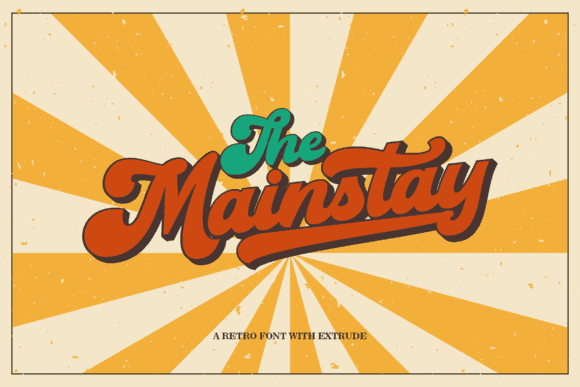
The Mainstay is a bold and retro styled handwritten font. This font reads as strong, confident, and dynamic and can add tons of nostalgic character to your designs.
2. Sailyme Font
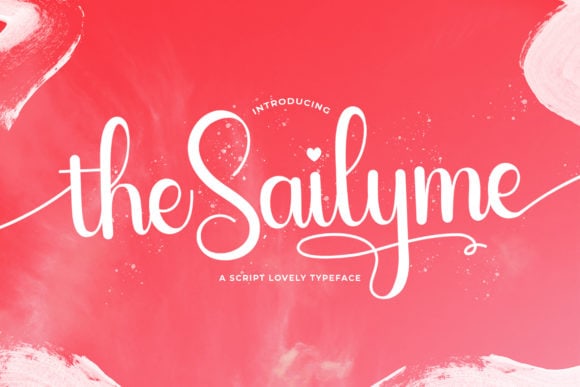
Sailyme is a romantic and delicate script font that has complimentary heart and swirly swashes that make it perfect for wedding invitations, greeting cards, and valentine’s day crafts.
3. Bigroads Script Font
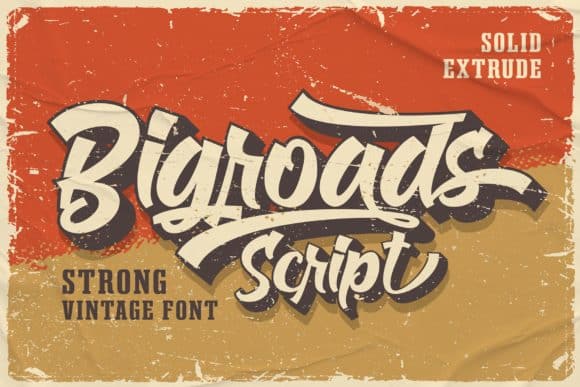
Bigroads Script is a layered bold script font, featuring an incredibly unique retro font. Add it to your most creative ideas and notice how it makes them come alive!
4. Quantine Font
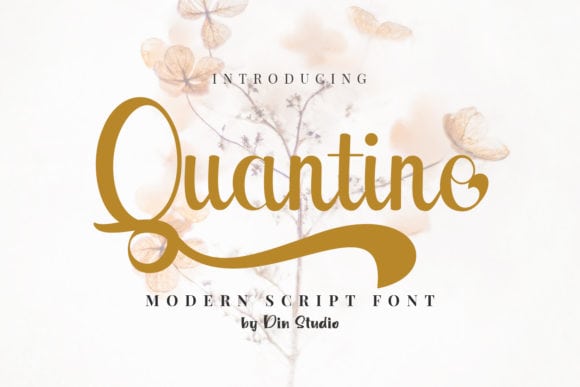
Quantine is a modern script typeface with a lovely style. It looks beautiful on a variety of designs requiring a personalized style, such as wedding invitations, thank you cards, weddings, greeting cards, logos and so on.
5. Master Christmas Font
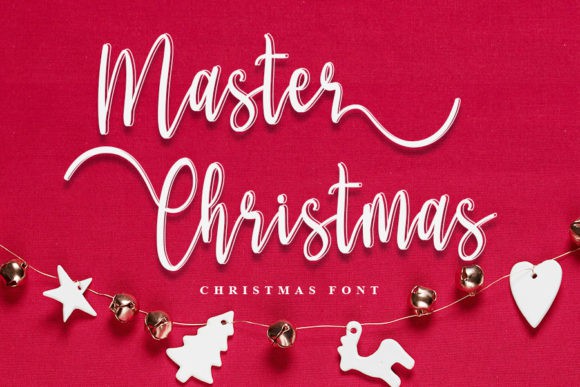
Master Christmas is a narrow script font with an outline on each character to create a 3D effect. It looks beautiful on a variety of designs requiring a personalized style, such as wedding invitations, Christmas crafts, thank you cards, weddings, greeting cards, logos, and so on. This font is PUA encoded which means you can access the available glyphs and swashes with ease!
6. Tiara Font
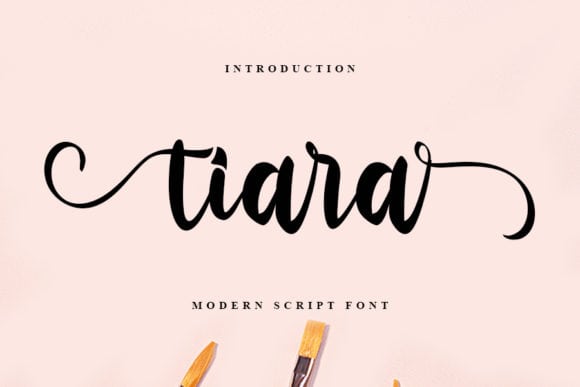
Tiara is a sweet and magical handwritten font. It has beautiful and well balanced characters and as a result, it matches a wide pool of designs.
7. Austeria Font
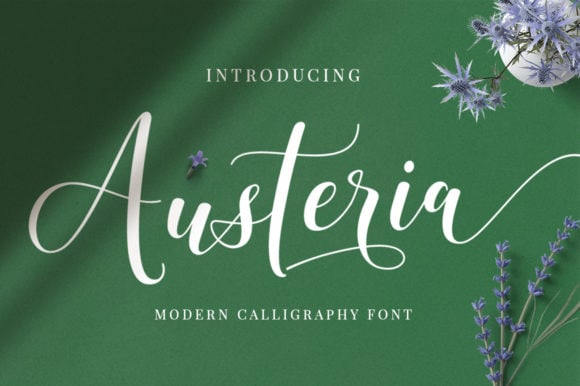
Austeria is a relaxed and flowing handwritten font. It is PUA encoded which means you can access all of the glyphs and swashes with ease!
Add this dreamy font to each of your favorite designs, and you will not be disappointed!
8. Abu Dhabi Font
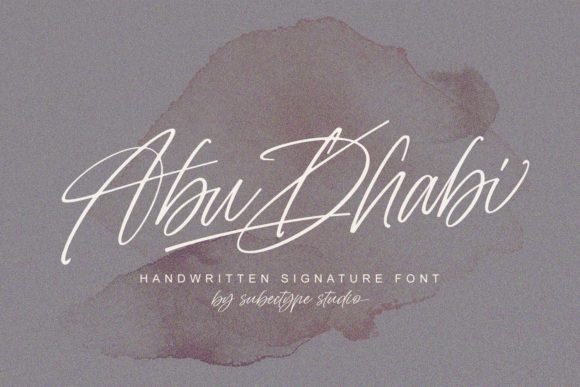
Abu Dhabi is a delicate, elegant and flowing handwritten font. It has beautiful and well balanced characters and as a result, it matches a wide pool of designs. Add it to your most creative ideas and notice how it makes them come alive!
9. Christmas New Year Font
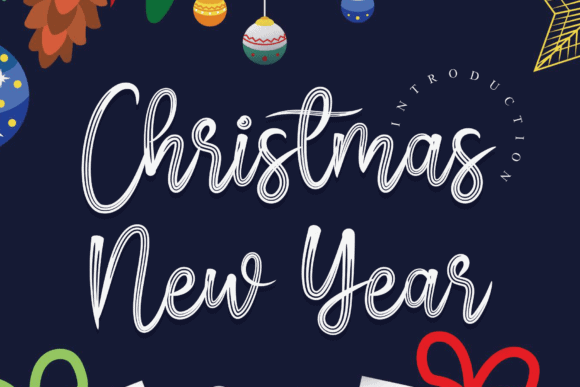
Christmas New Year is an elegant and dainty handwritten font that features sweet and delicate swashes. It looks stunning on wedding invitations, thank you cards, quotes, greeting cards, logos, business cards and every other design which needs a handwritten touch.
10. Seyko Font
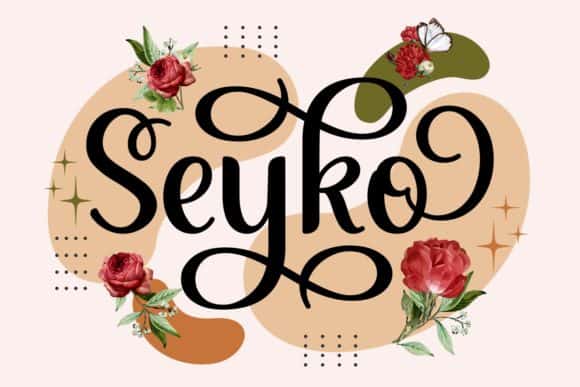
Seyko is a beautiful and magical handwritten font. Not too thin and not too thick, balanced and varied, Seyko was designed to enhance the beauty of your projects.